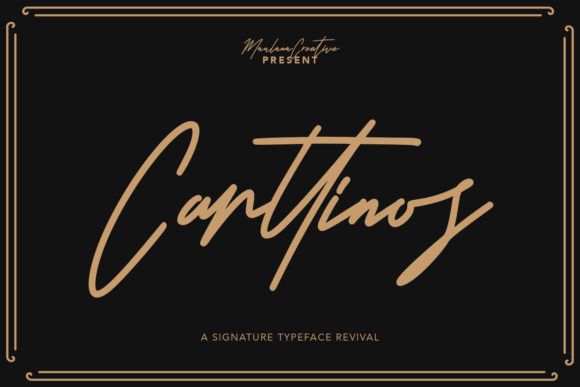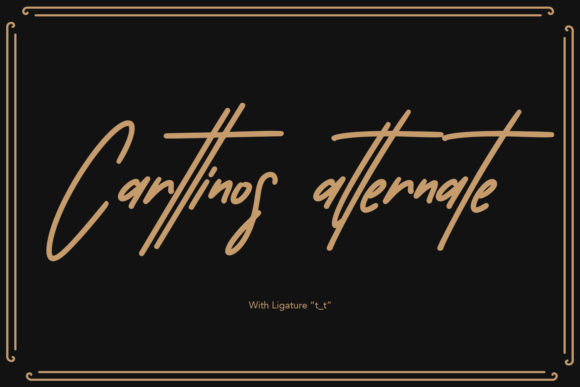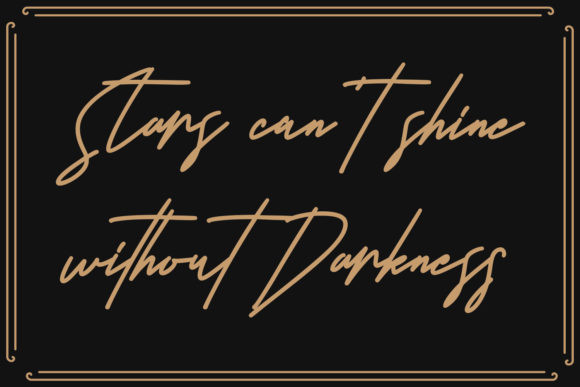
Carttinos Font
Carttinos is a delicate and elegant handwritten font. Beautifully designed to become a true favorite, this font has the potential to bring each of your creative ideas to the highest level!